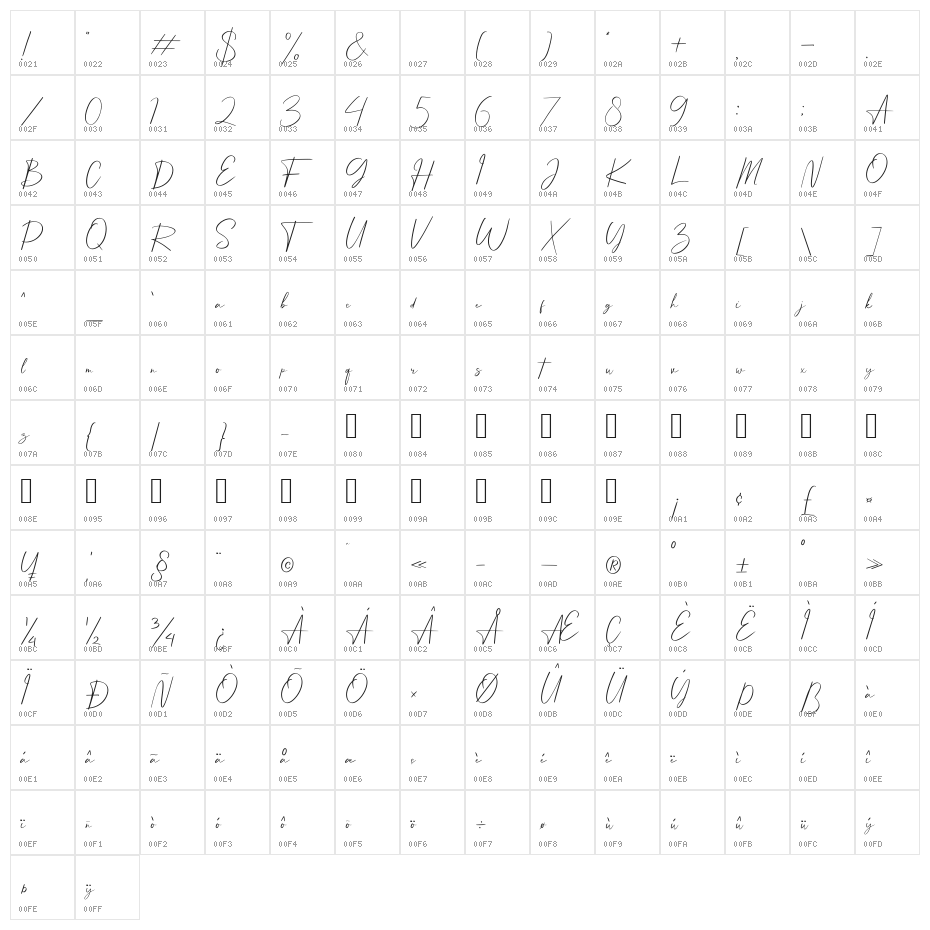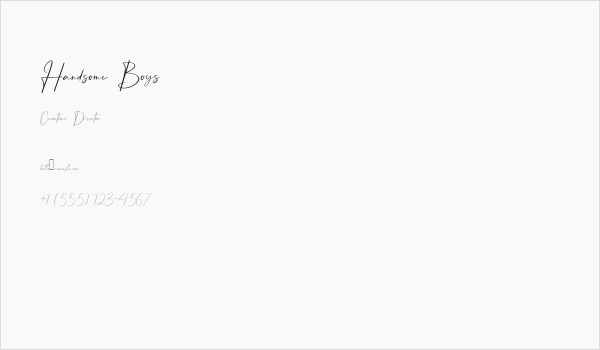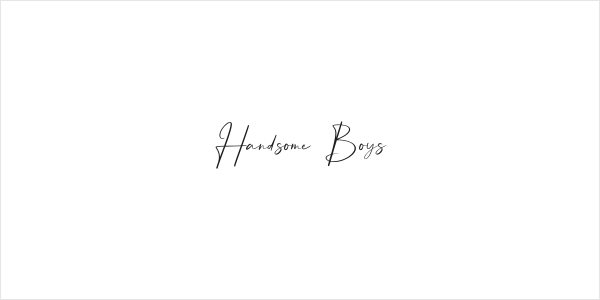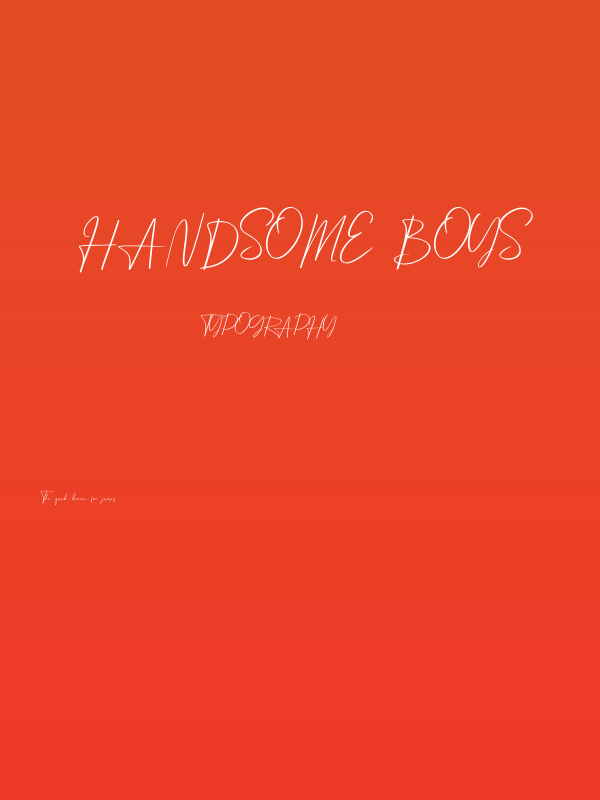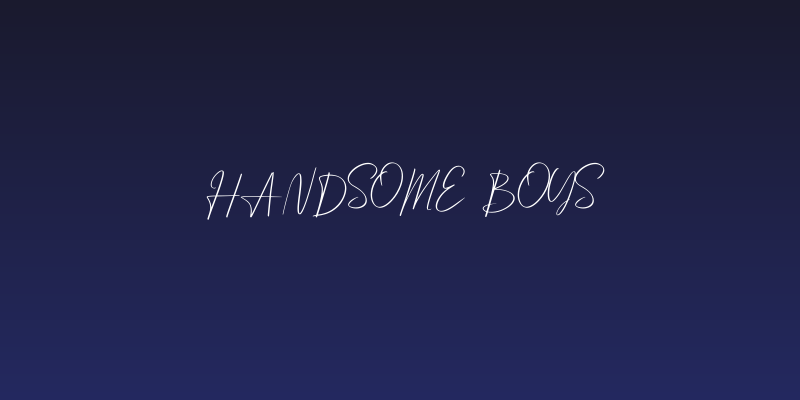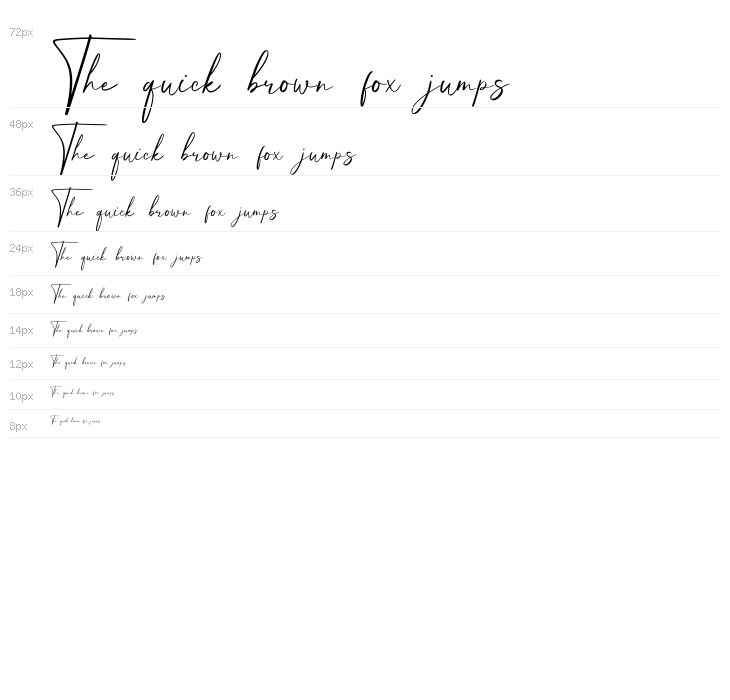
Handsome Boys Font
Handsome Boys Description
A delicate, handwritten script font with tall, narrow letterforms and fluid, connected strokes, featuring high contrast between thin and slightly thicker lines. The characters have a casual, elegant appearance with a natural, flowing rhythm.
| Overall Style | Decorative, Elegant, Modern |
| Use Case | Logos, Headlines, Invitations, Personal notes |
| Proposed Projects | Wedding invitations, personal branding, greeting cards, social media graphics, elegant packaging. |